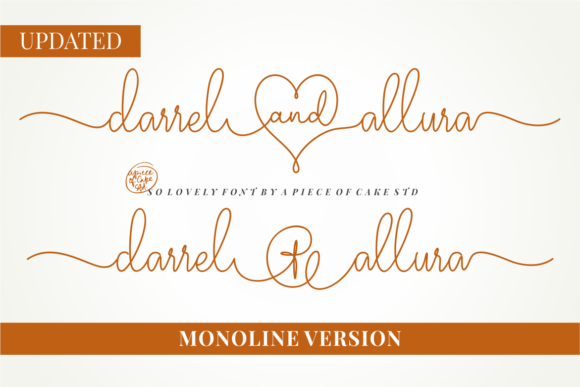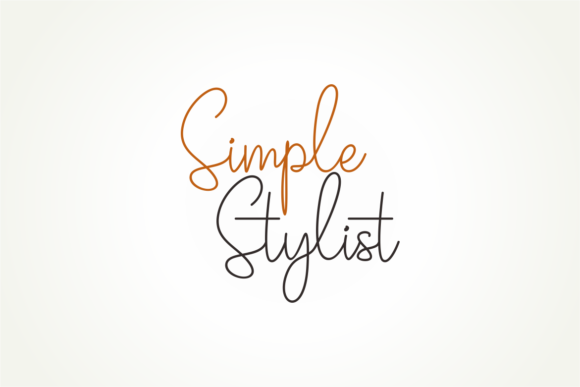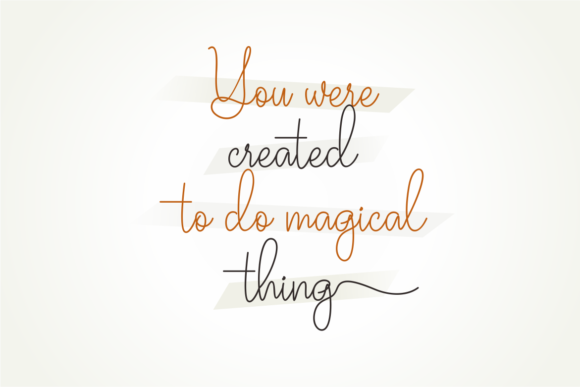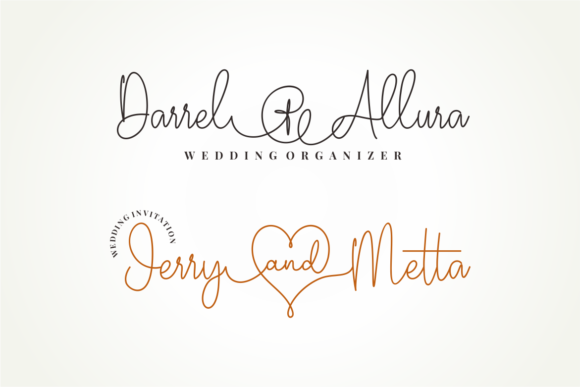
Darrel Allura Monoline Font
About the Darrel Allura Monoline Font
Get ready to be inspired by Darrel Allura Monoline Font, a fresh and dynamic typeface for modern creators. Darrel Allura Monoline is a magical script font carefully created with a touch of elegance. Whether you’re looking for fonts for Instagram or calligraphy scripts for DIY projects, this font will turn any creative idea into a true piece of art!
Darrel Allura Monoline’s elegant, flowing forms are ideal for headlines, short text blocks on invitations or packaging, and social media graphics. Its delicate monoline weight, however, makes it unsuitable for body text or lengthy paragraphs; readability suffers at smaller sizes. Avoid using it in UI contexts requiring high legibility.
The font’s personality is sophisticated yet approachable. It projects a sense of refined casualness, making it perfect for brands focused on fashion, beauty, or artisanal goods. Pair it with a clean sans-serif like Montserrat for a modern contrast, or a classic serif such as Garamond for a more traditional feel. A geometric sans-serif could also provide a striking counterpoint to its organic curves.
Consider pairing Darrel Allura Monoline with a simple script font for added visual interest in logos or wedding stationery, but use sparingly to avoid visual overload. Its inherent elegance shines best when supported by clear, legible counterparts.
Darrel Allura Monoline Font Usage Examples
Darrel Allura Monoline Font Example